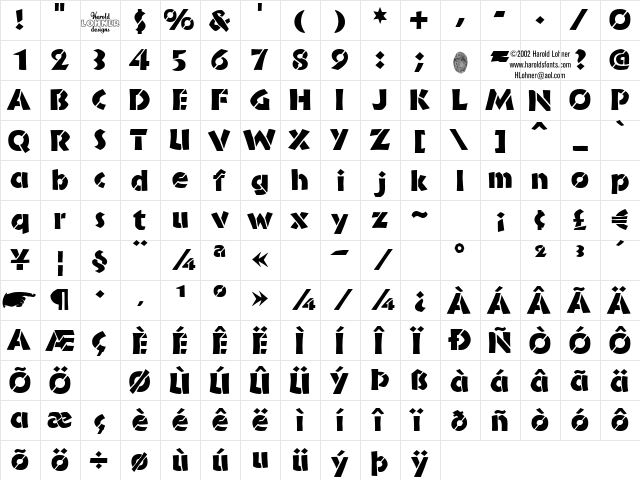
Bride StencilAlt Regular
Design Context for Bride StencilAlt Typeface
Bride StencilAlt has the rough pragmatism of spray-painted stencil signage, adding a raw, street-level authenticity to designs.
Ideal for industrial branding, streetwear, military-adjacent aesthetics, and urban signage projects.
Pro Tip: Pair Bride StencilAlt with raw, utilitarian design elements — exposed concrete textures, flat colour, and minimal ornamentation suit it well.